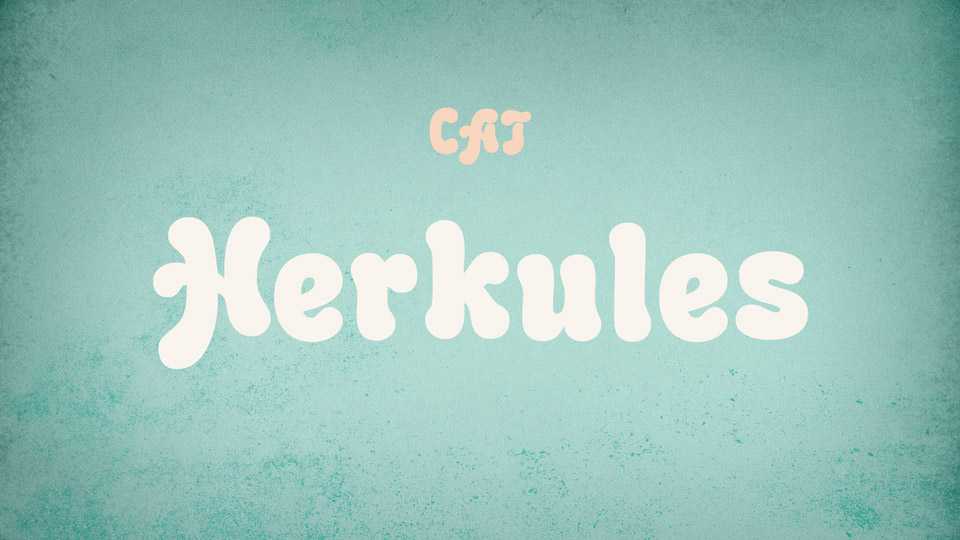
Download Herkules font, a heavy Art Nouveau typeface, based on the type released by Bauer and Berthold at the end of the 19th century. Herkules font is perfectly fits for ads and posters and other display typography.